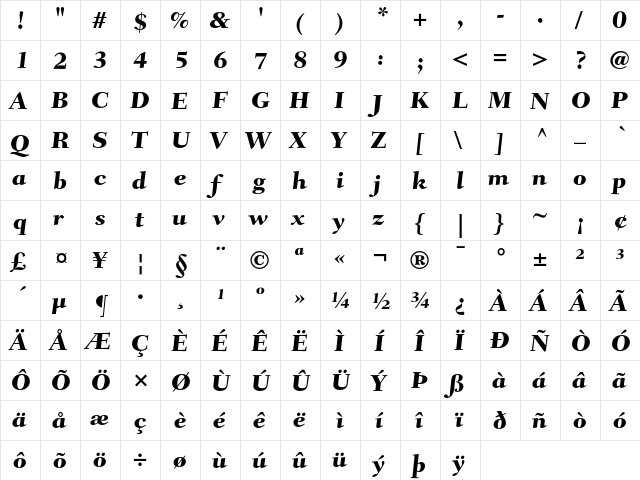
Fairfield LH 85 Caption Heavy
Design Context for Fairfield LH Typeface
Fairfield LH is a composed and adaptable typeface that performs quietly and consistently across a wide range of design contexts.